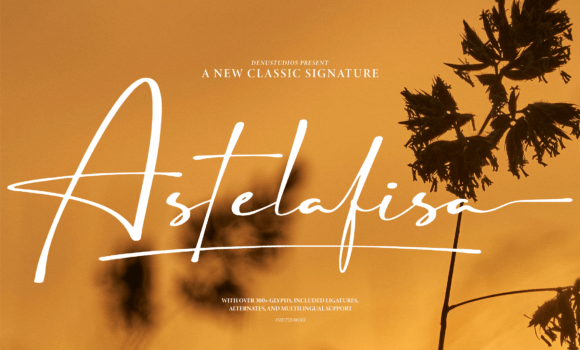
astelafisa
Astelafisa Font - Featured Image
Astelafisa Font – Free Download Introduction to Astelafisa Font Discover the timeless beauty of Astelafisa, a classic signature script font that radiates sophistication and elegance. 📸 Preview Gallery 6 images 📌 Product Name Astelafisa Font 👤 Author Denustudios 📂 Category